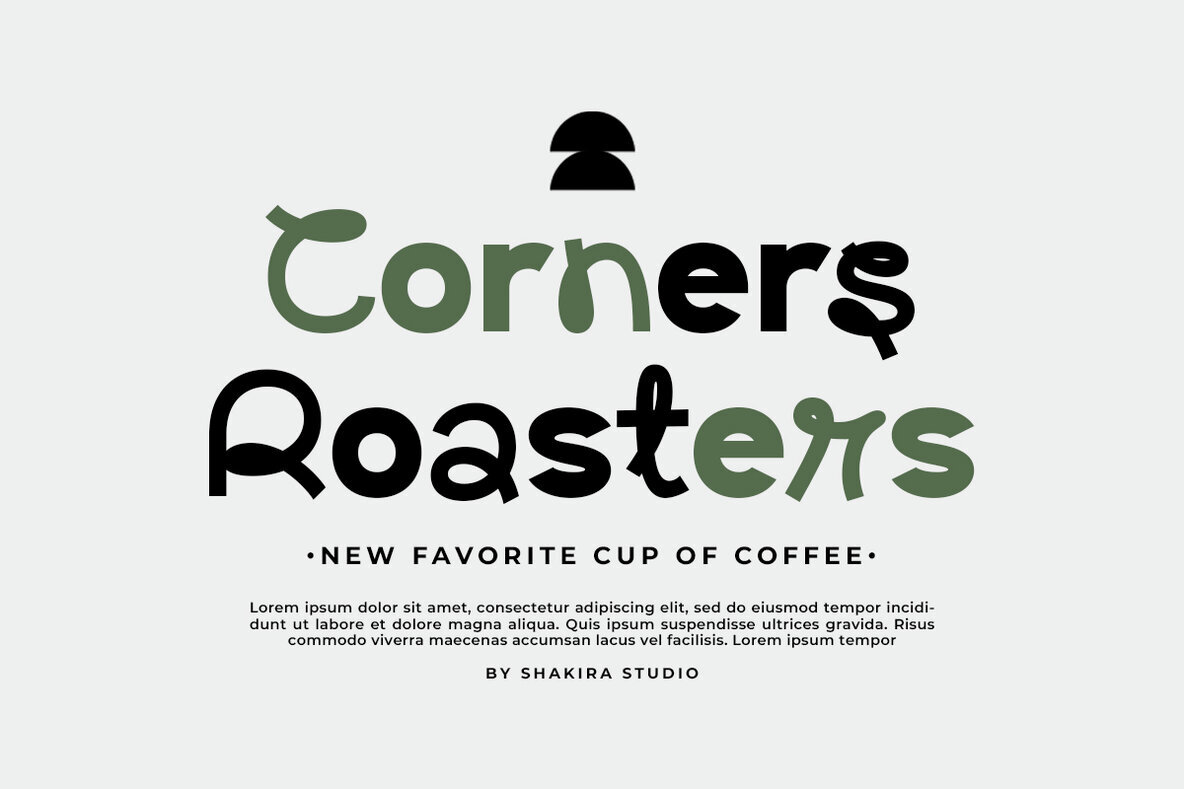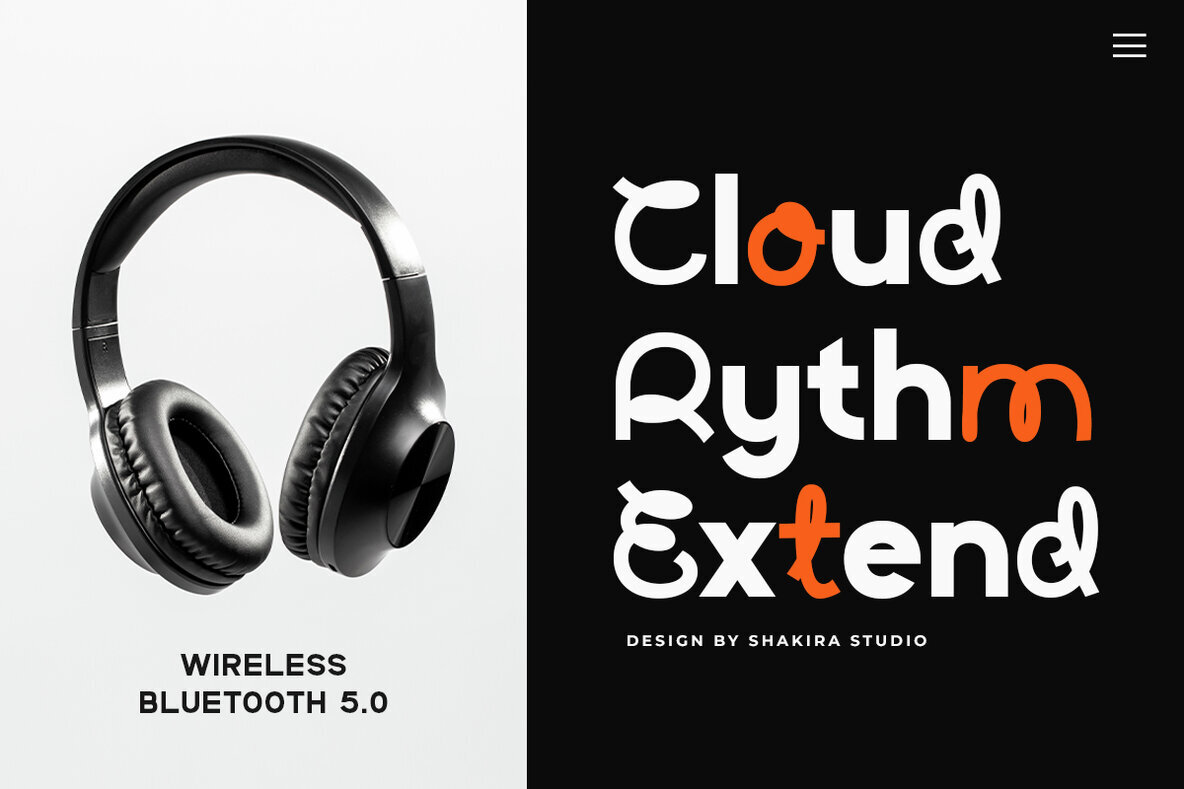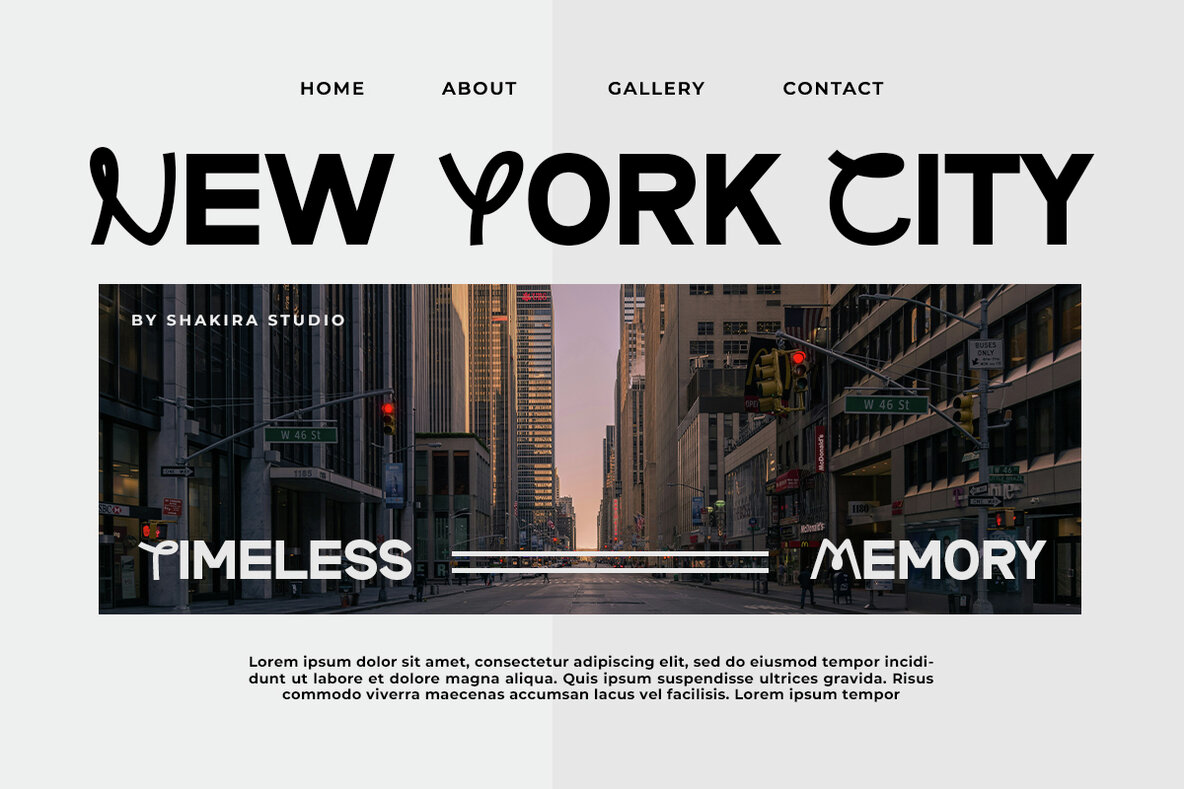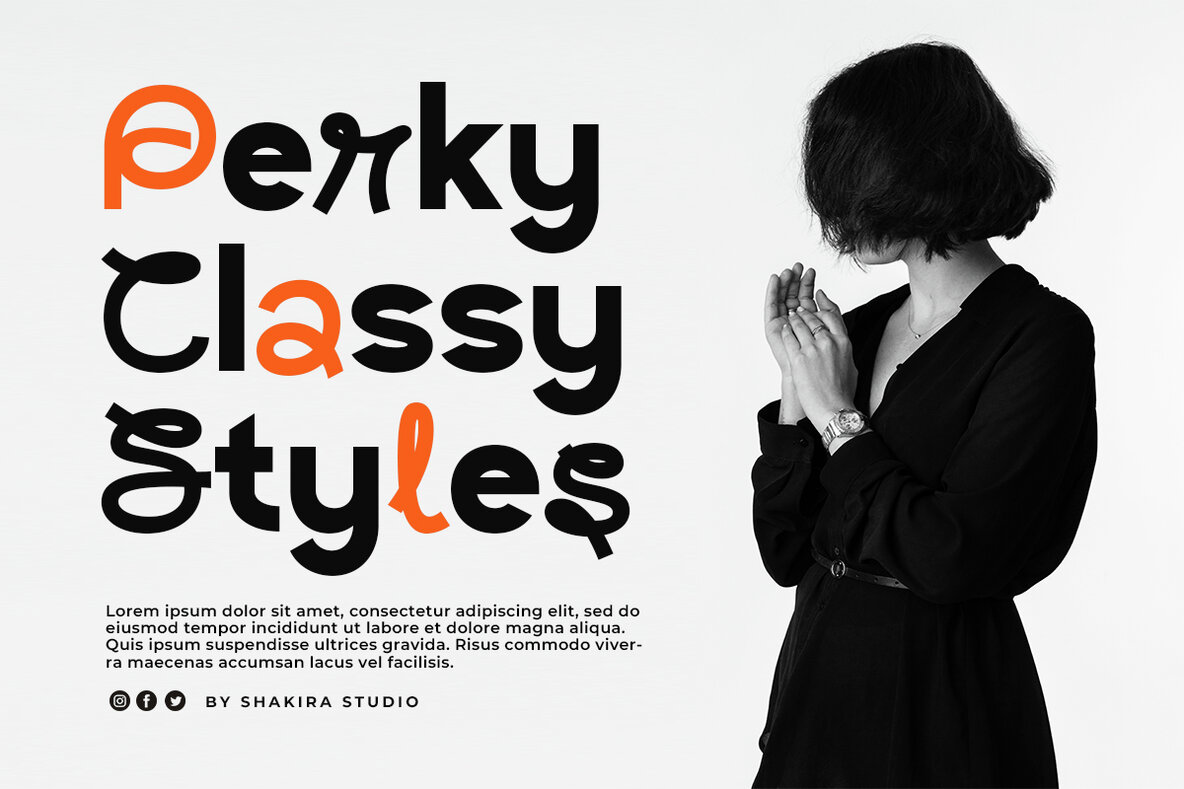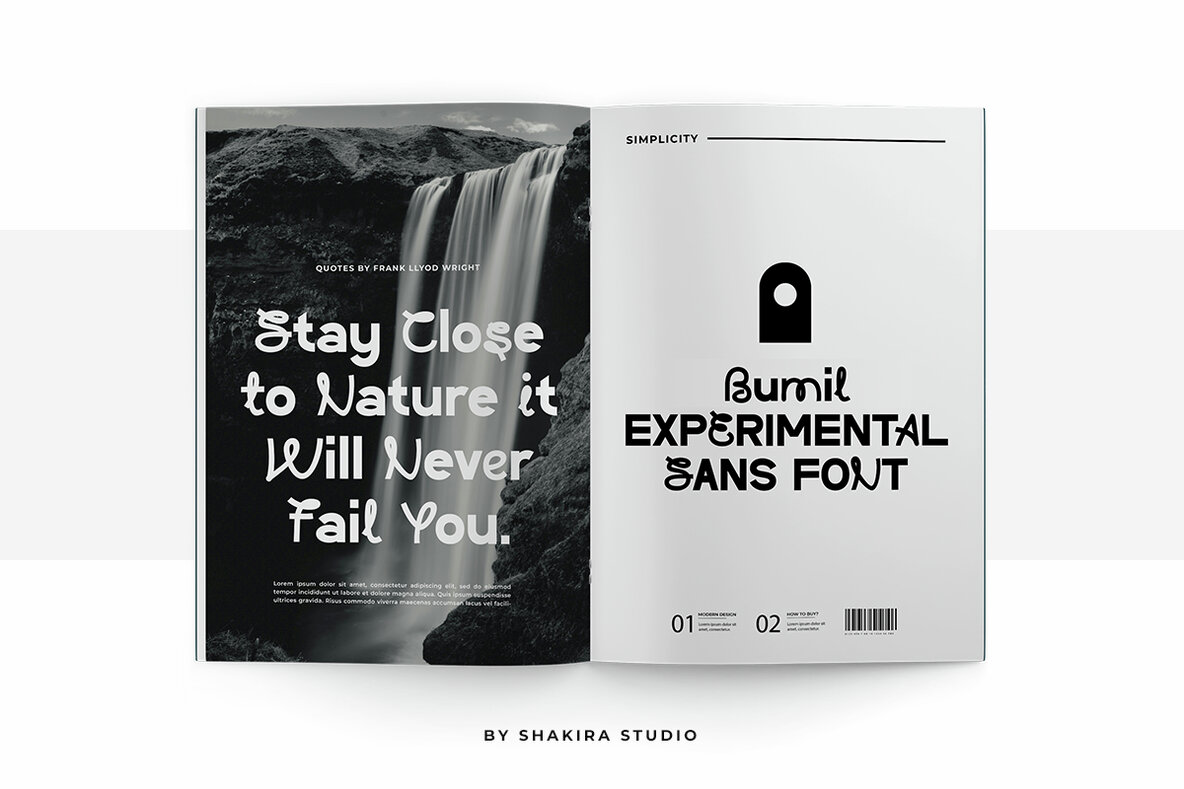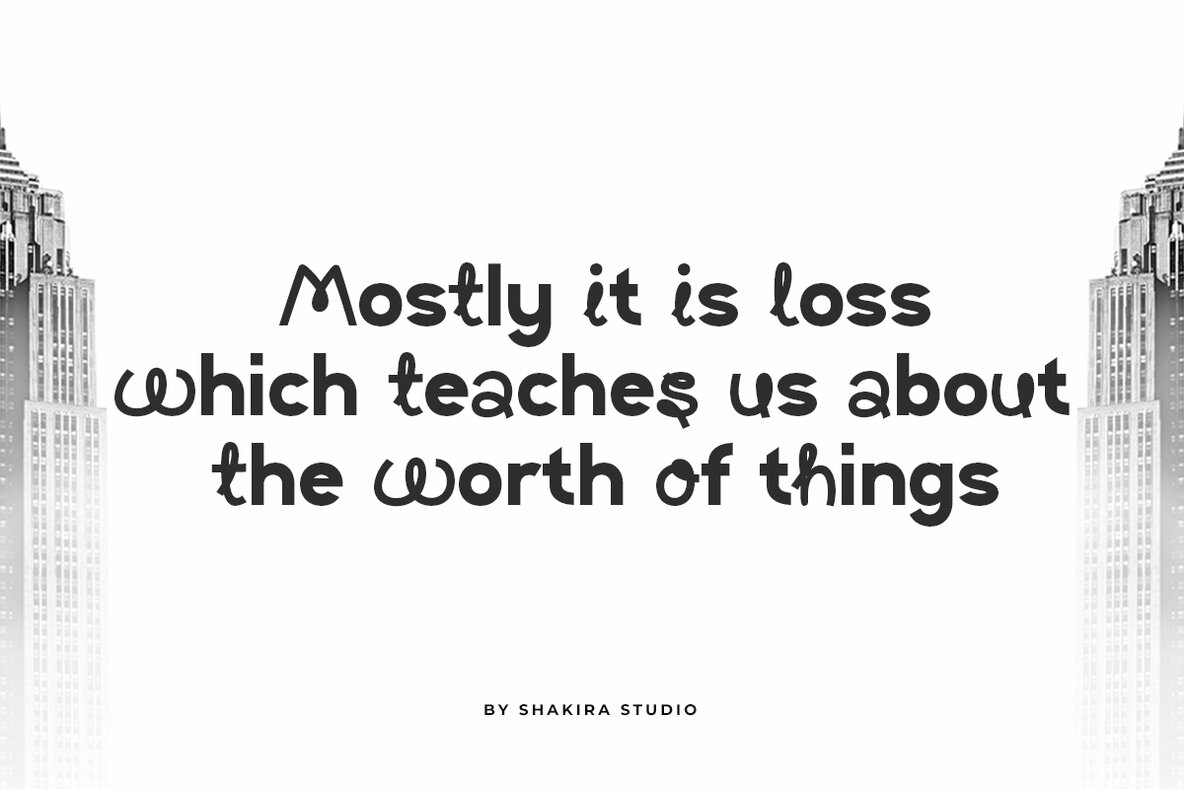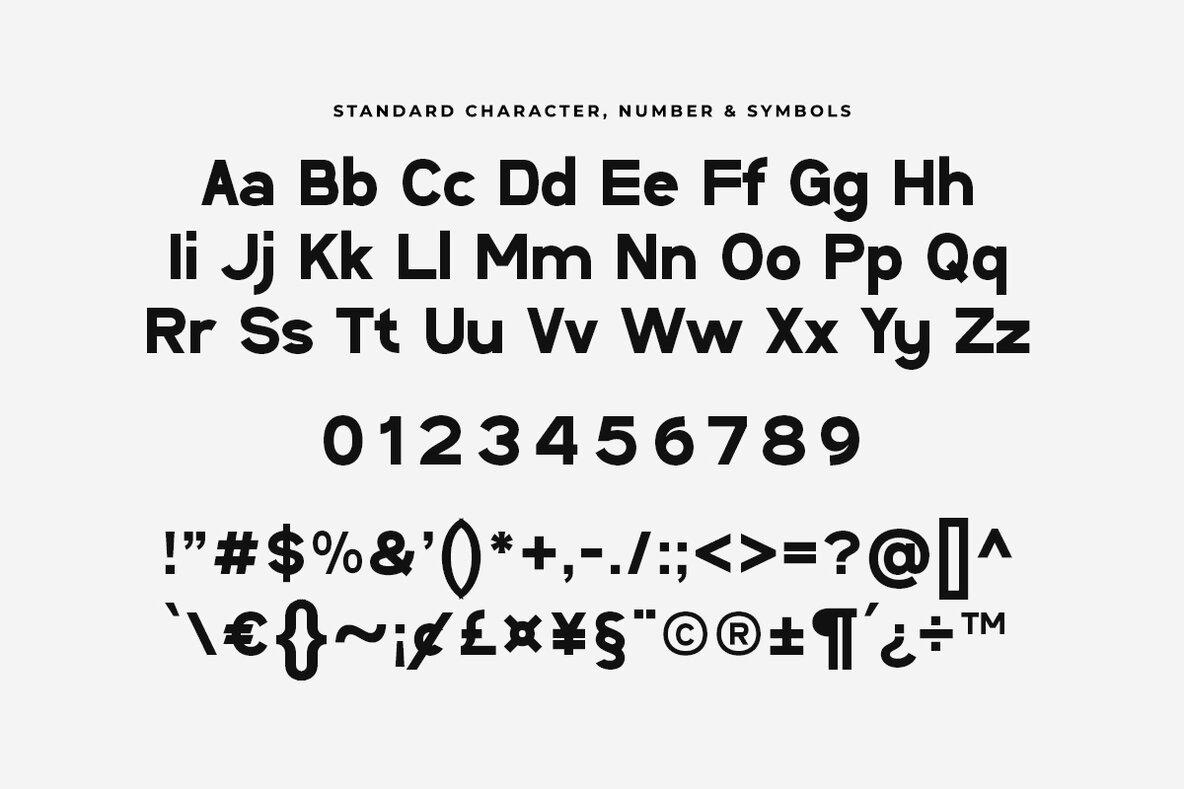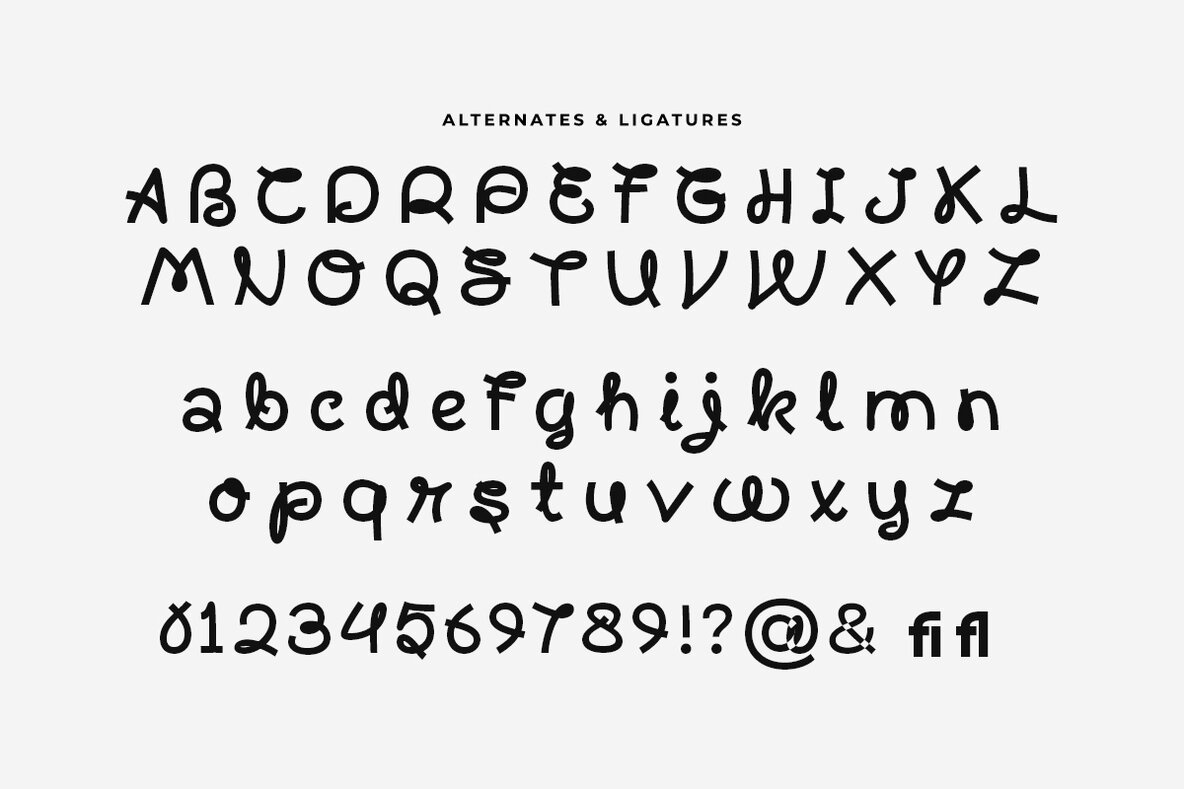
Bumil Font
Bumil Regular
Bumil is a bold experiment in modern typography, perfectly capturing the essence of experimental fonts and current typography trends. Designed to push the boundaries of conventional design, Bumil features unique characters and stylish alternates that add distinctive flair to any project. Whether you're working on cutting-edge branding, innovative posters, or creative editorial designs, Bumil's experimental nature ensures your work stands out.
Join the trend towards bold and avant-garde typography with Bumil. Its unique charm and modern appeal make it an ideal choice for designers seeking to innovate and impress.